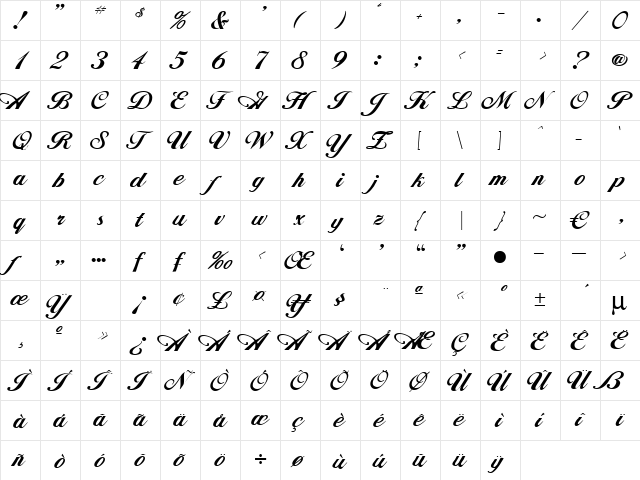
Andrea Regular Font Preview
Andrea Regular
Design Context for Andrea Typeface
Andrea is a composed and adaptable typeface that performs quietly and consistently across a wide range of design contexts.